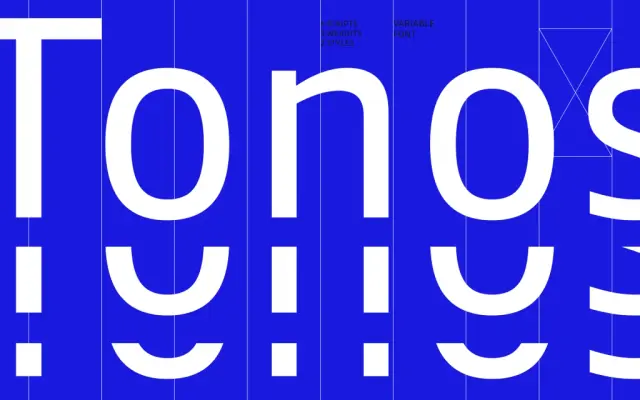
A humanist sans family built for UI and HMI use, covering Arabic, Cyrillic, Greek, Hebrew, Latin and Thai with calligraphic warmth consistent across all scripts.
Drawn with a calligraphic heritage that carries a warm, readable quality across six scripts, Tonos is designed specifically for interface and human-machine interface typography. The family runs from Light to Bold with matching italics, a condensed width, and monospaced styles for technical contexts. It ships as a variable font with weight and width axes, making it well suited to responsive UI environments where a single file must cover a wide range of typographic needs.
Described as having calligraphic heritage giving it a warm, humanistic quality; designed for UI and HMI contexts with broad multi-script support, placing it firmly in the humanist sans tradition.